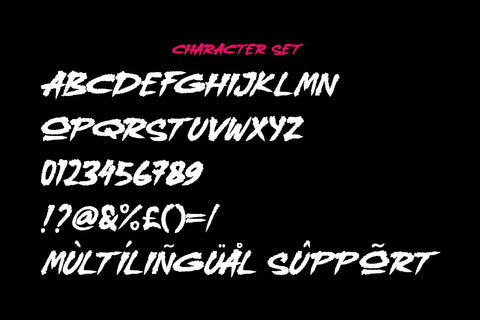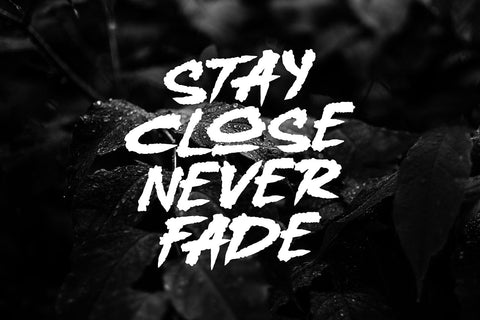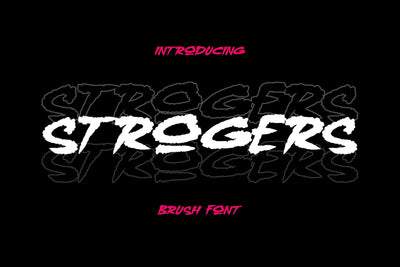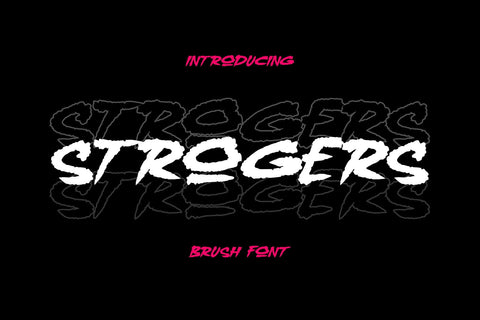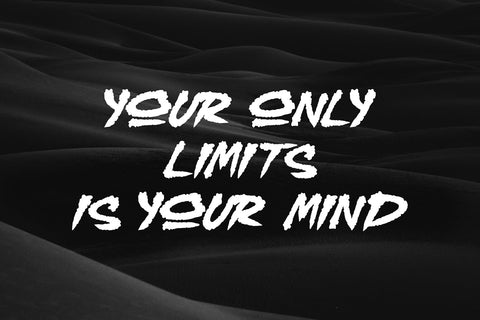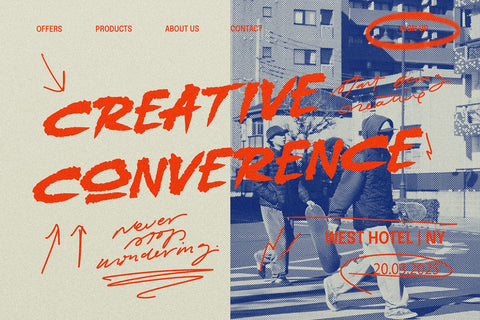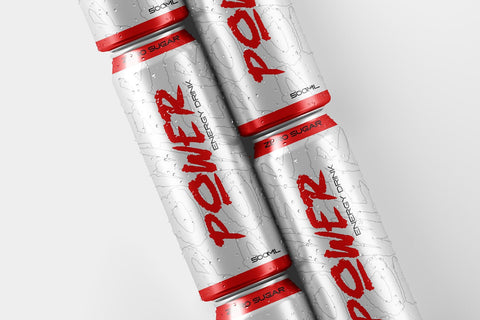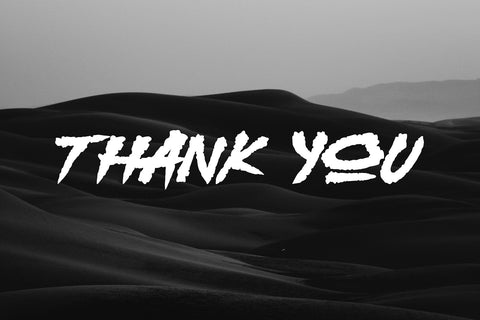
Strogers - a Rough Brush font
Strogers is a brush font with a rugged, jagged edge on every stroke, giving it a bold and raw graffiti-inspired look. Its rough and expressive style makes it perfect for urban-themed designs, streetwear branding, posters, album covers, and any project that needs an edgy, rebellious touch. With its unique serrated edges and hand-drawn feel, Strogers brings energy and attitude to your typography, making every design stand out with a fierce and street-savvy aesthetic.
- Graffiti Characters looks